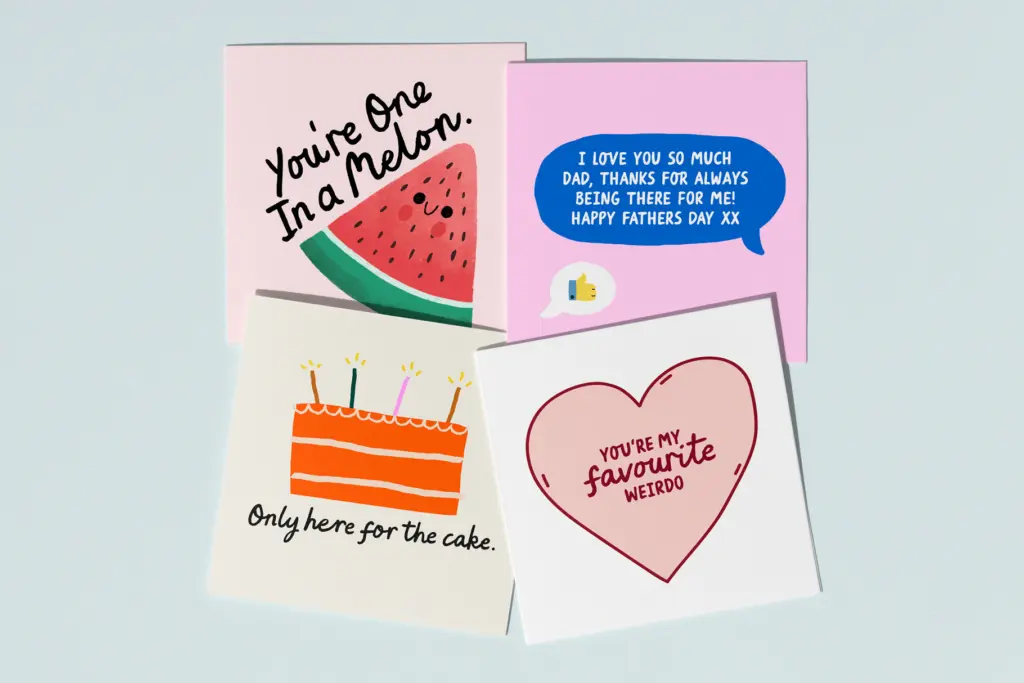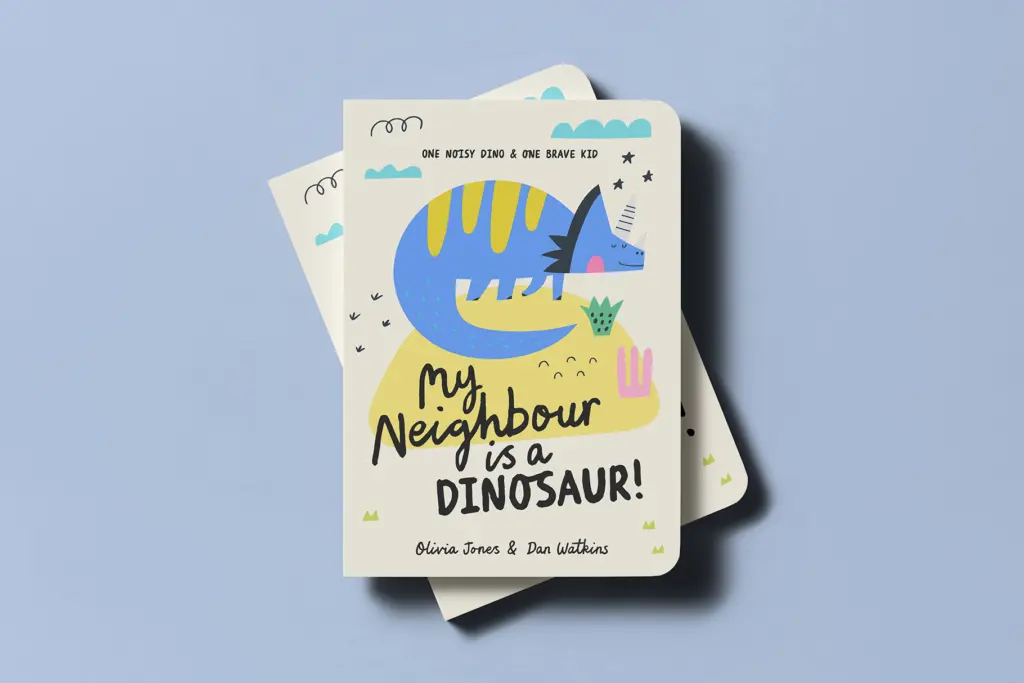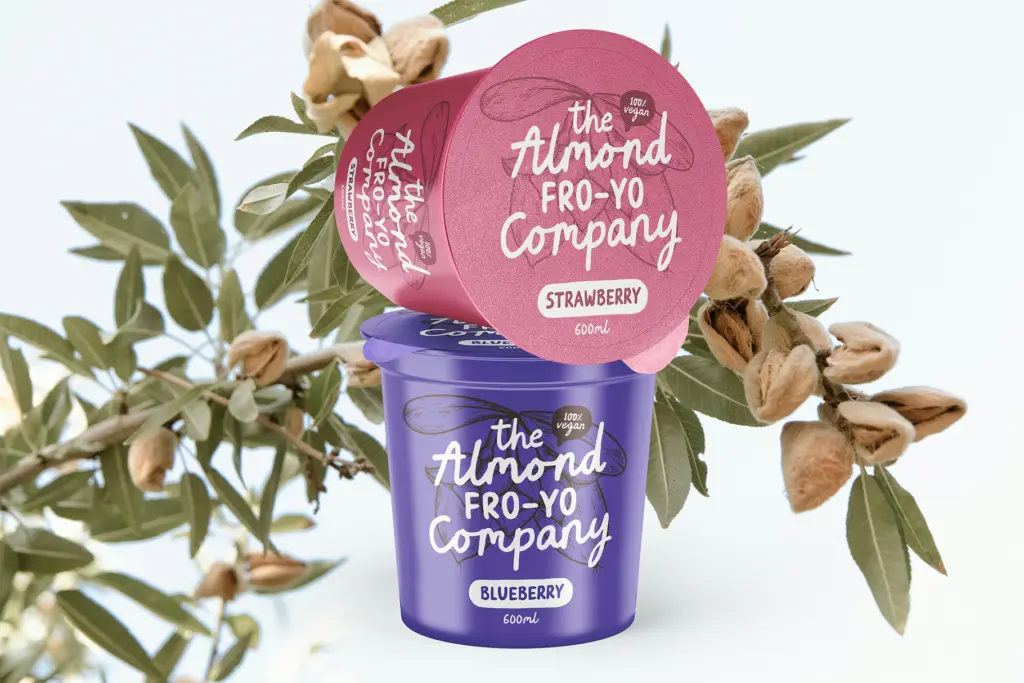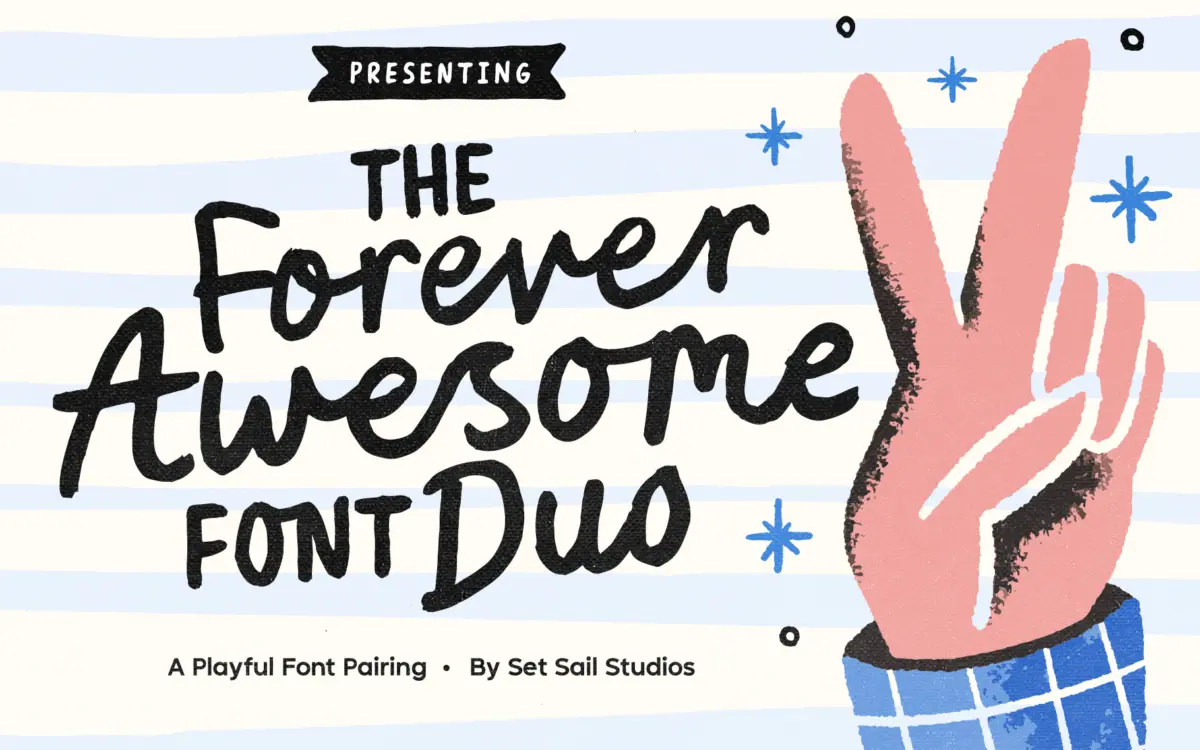
Forever Awesome is a hand-drawn duo built around a bouncy, slightly wobbly script paired with a companion all-caps face. The script leans into imperfection on purpose — strokes vary in weight as if drawn with a chunky brush marker, baselines drift a little, and letters lean at inconsistent angles. It reads as friendly rather than sloppy, which is a harder trick to pull off than it looks. The all-caps companion is more restrained: blocky, upright letters with rounded corners that feel like they came from the same hand but with the volume turned down. Together they suggest packaging for children’s products, hand-lettered signage, or anything that wants to feel approachable rather than polished.
The rough, irregular quality is the whole point here, and it’s consistent throughout — nothing feels like a stray decision. But that same roughness means this isn’t a typeface you reach for when you need composure. It has one register: cheerful and a bit chaotic.
The set is three fonts: the main Script, a separate Script Alt with its own set of alternate upper and lowercase characters, and an All Caps font. The Alt file is a smart way to handle alternates — rather than burying them in OpenType stylistic sets that many layout programs handle inconsistently, Sam Parrett has made switching a simple font swap, which is more reliable for anyone using basic design software or online tools.
The Script includes 69 ligatures covering common double and triple letter combinations, which matters more than the number suggests. Hand-lettered scripts live or die on how their letters connect, and unhandled repeated letters are usually where the illusion breaks — two identical letterforms sitting side by side look mechanical no matter how loose the individual strokes are. Sixty-nine combinations is enough to catch most everyday words without forcing awkward workarounds.
The All Caps font doubles as two uppercase sets accessed via the shift key, so you get two distinct cap styles without opening a second file. It’s designed specifically to sit underneath or alongside the script — smaller, calmer, avoiding the letter-clash that can happen when two expressive display faces compete for attention. Language support extends across most major European languages, including several with heavier diacritic use like Polish, Croatian and Turkish, which is a reasonable spread for a script/display pairing at this level.
This duo is built for informal, personality-driven work: logos for kids’ brands, greeting cards, packaging that wants to feel handmade, quote graphics, and party or event materials aimed at a young or playful audience. The script works well as a headline or feature word — short bursts of text where the irregularity reads as charm rather than noise. The all-caps companion is the workhorse of the pair, better suited to subheads, taglines, or short labels where legibility needs to hold up at smaller sizes.
It’s not the choice for body copy, formal branding, or anything that needs to read as considered or premium — the deliberate wobble works against those goals. Used within its lane, though, it does a clear, specific job well.
- 69 ligatures handle common letter combinations so the script avoids awkward repeated-letter clashes
- Separate Alt font makes accessing alternate characters simple without relying on OpenType stylistic sets
- All-caps companion includes two uppercase styles accessed via shift, useful for pairing with the script
- The deliberate irregularity limits it to informal, playful contexts and won't suit formal or premium branding
- Legibility softens at smaller sizes, so the script is best reserved for short headline use rather than body text
Forever Awesome Font Duo does one thing well: cheerful, hand-drawn lettering for playful, informal projects. The ligature set and alternate character font show real attention to how the script actually gets used, but the deliberate wobble limits it to a narrow, specific job.